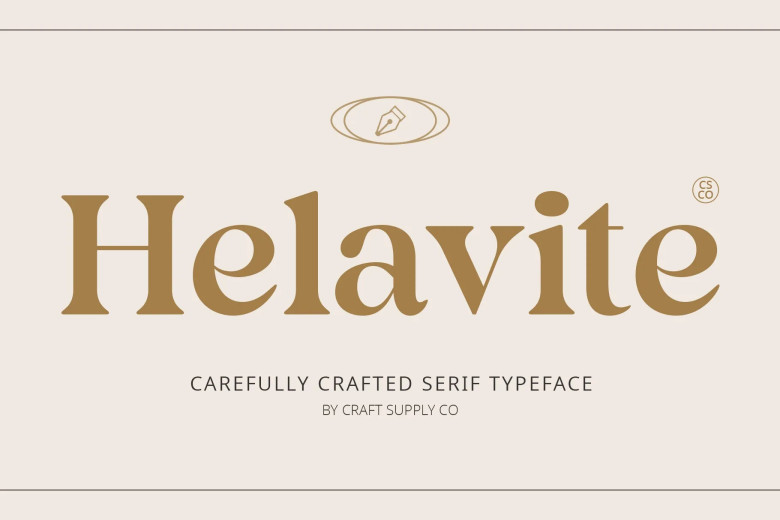
Helavite Font
Helavite – could hardly be called the best typeface for contemporary use, being both classical and minimalistic. There is use of serif in this font; therefore it looks more professional and can be used in organizations of almost any kind. Helavite Font can comfortably be used in applications such as headlines and body texts and even for logos.
The modern cut of the font gives a somewhat post-modern appearance to any project into which it is incorporated, but the serifs are classic. However, what is more important for Helavite Font is the readability, therefore, the content of the magazines will be clearly comprehensible for the readers. This font is especially suitable for small letters or if the text is to be printed on some material to be published on an internet site.
Helavite Serif Font